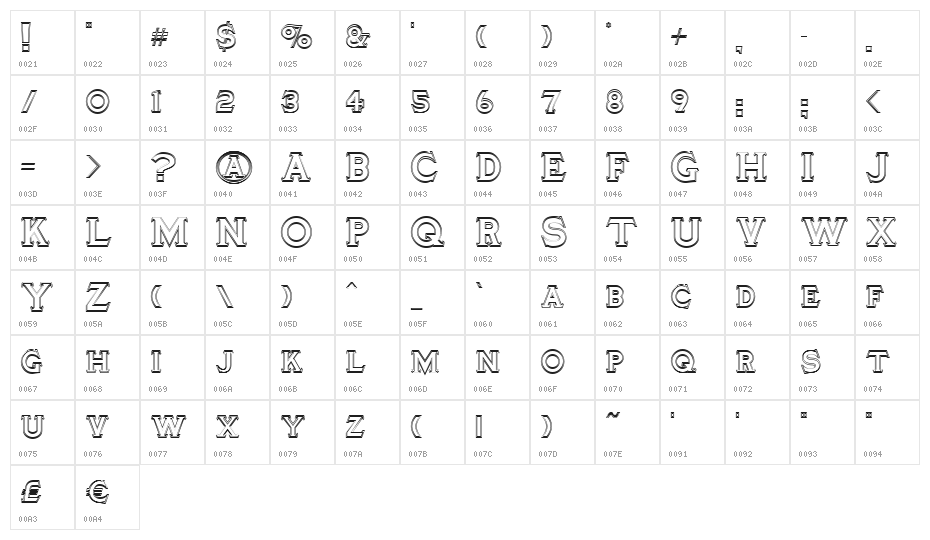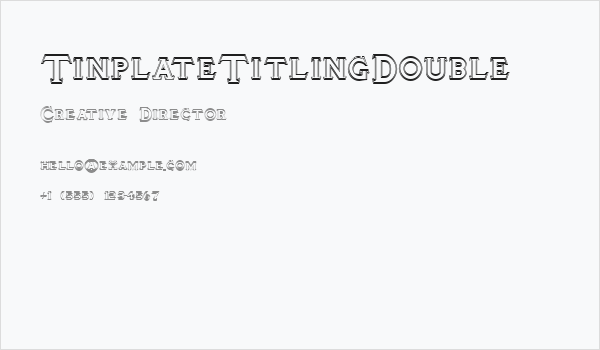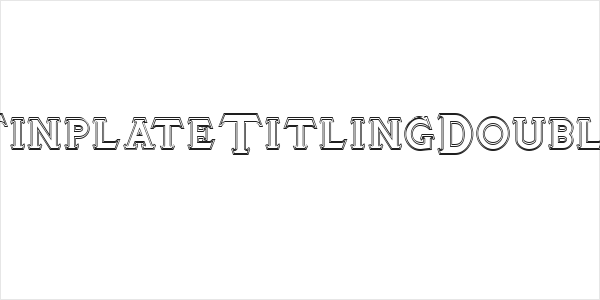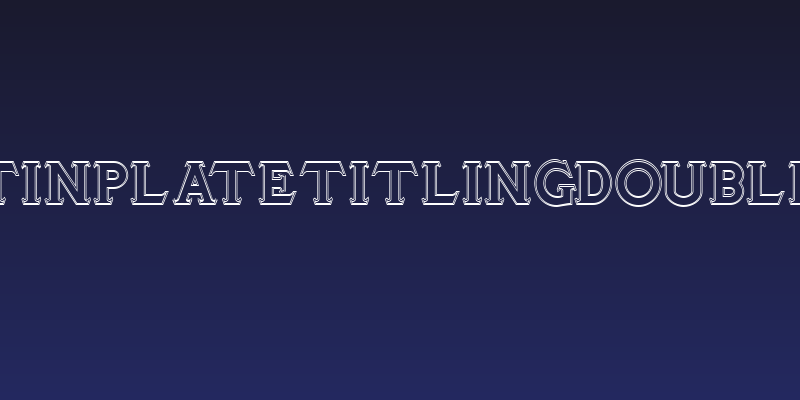
TinplateTitlingDouble Font
TinplateTitlingDouble Description
This font features a unique and decorative style, characterized by its double-line structure that gives each character a bold and striking appearance. The design is highly geometric, with consistent line thickness throughout each letterform, creating a uniform and cohesive look. The uppercase and lowercase letters maintain a similar aesthetic, ensuring readability while adding a touch of elegance. The numerals and special characters are designed to match the overall style, making the font versatile for various applications. The font's distinct appearance makes it suitable for creative and artistic projects where a standout typeface is desired.
| Use Case | Logos, Posters, Album covers |
| Proposed Projects | Ideal for posters, logos, album covers, and any project requiring a bold, artistic typeface. |